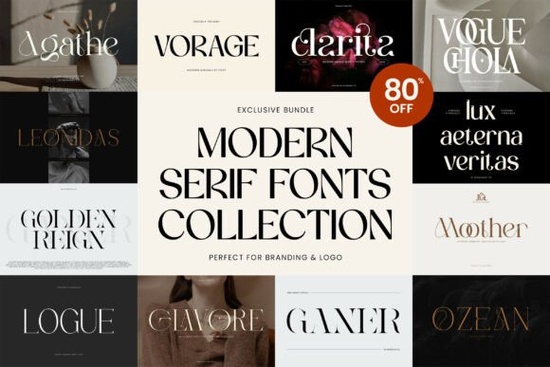
If you’ve been looking for a clean, professional way to add personality to your branding or design projects, the Modern Serif Bundle Font is worth checking out. It’s not flashy or overwhelming just eight well-crafted serif fonts that work across logos, packaging, social media, and print layouts. Whether you’re designing for a client or running your own small business, this bundle gives you variety without clutter.
What makes this collection useful is how each font balances elegance with modern readability. You get options like Agathe, which leans minimalist, and Vogue Chola, which brings more flair for fashion or editorial use. The rest Clarita, Vorage, Ganer, Ozean, Glavore, and Logue cover everything from sleek headlines to textured display styles.
Which projects are these fonts actually good for?
You don’t need to be a pro designer to make these work. Here’s where they fit best:
- Small business branding Think boutique shops, handmade product labels, or service-based logos that need to feel trustworthy but fresh.
- Social media templates Quotes, carousels, or promo graphics that stand out without screaming for attention.
- Print-on-demand items Mugs, tote bags, journals anything where typography carries the message.
- Editorial layouts Magazines, zines, or digital newsletters that benefit from refined headings.
If you’ve used Wolmer or Gibs before, you’ll notice a similar level of polish here but with more stylistic range. That’s helpful when you’re juggling multiple clients or products and need fonts that adapt without clashing.
Are these fonts easy to use with alternate characters?
For example, if you’re working on a wedding invitation or luxury product label, fonts like Raffined might come to mind but here, Vogue Chola or Glavore offer similar elegance with less fuss. And since everything’s bundled, you’re not paying per font or hunting down licenses separately.
It’s also practical for crafters or Etsy sellers who rotate designs seasonally. One month you might use Ozean for beach-themed quotes, the next you could switch to Logue for minimalist holiday cards. Variety saves you from buying new fonts every time a trend shifts.
How do these compare to other serif bundles?
Most font bundles throw in dozens of styles you’ll never use. This one keeps it tight eight fonts, all serif, all modern, no filler. If you’ve browsed other serif collections and felt overwhelmed by choices or inconsistent quality, this feels more intentional.
The weights and spacing are consistent across the set, so mixing them in one layout (say, pairing Clarita for body text with Ganer for headers) doesn’t look mismatched. That’s rare in bundles, and it saves time during mockups.
Fonts aren’t magic but having the right ones removes friction. If your current toolkit feels limited or dated, this bundle quietly fills the gaps without overcomplicating things. No hype, no fluff just solid typefaces that do what you need them to.